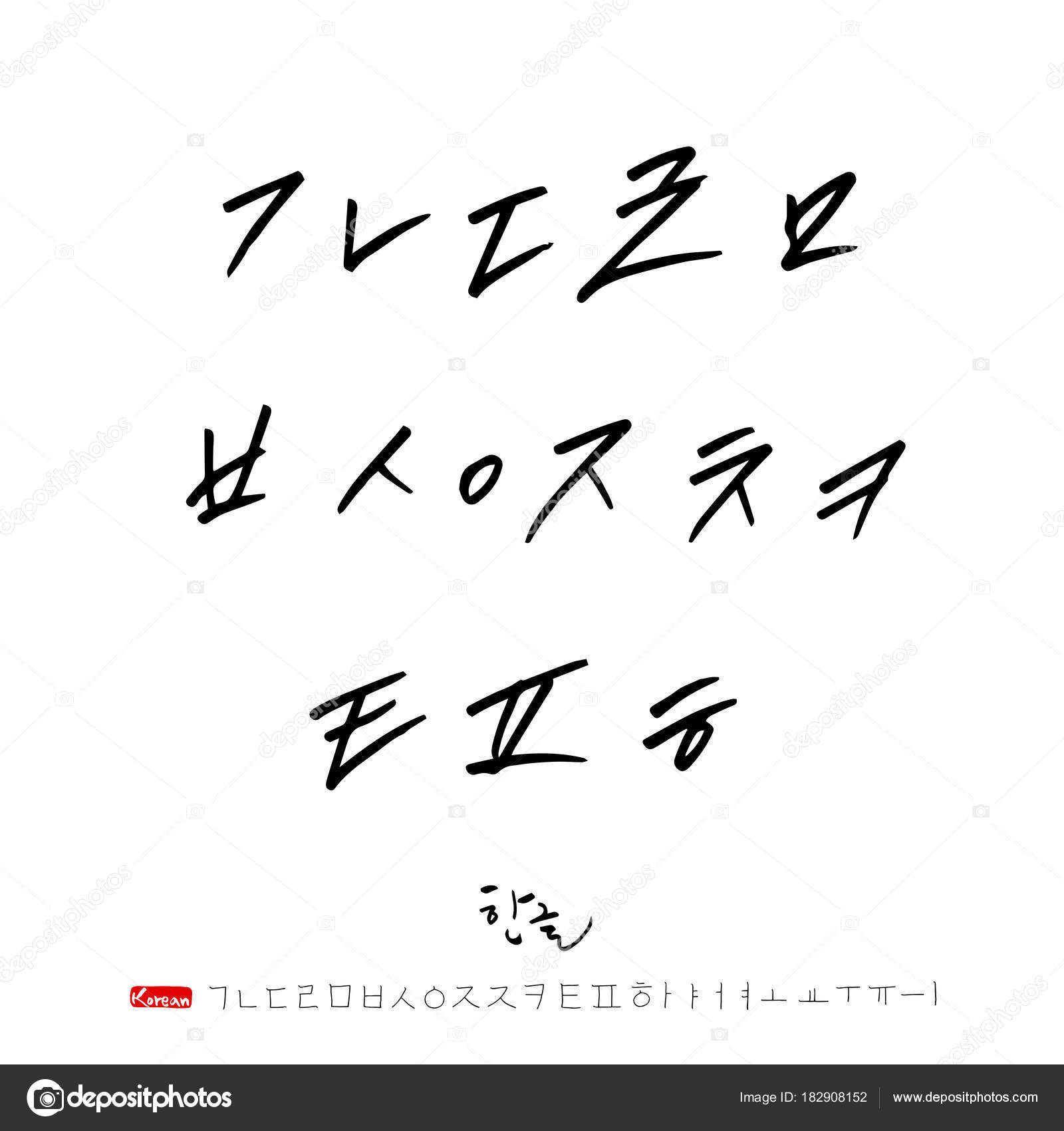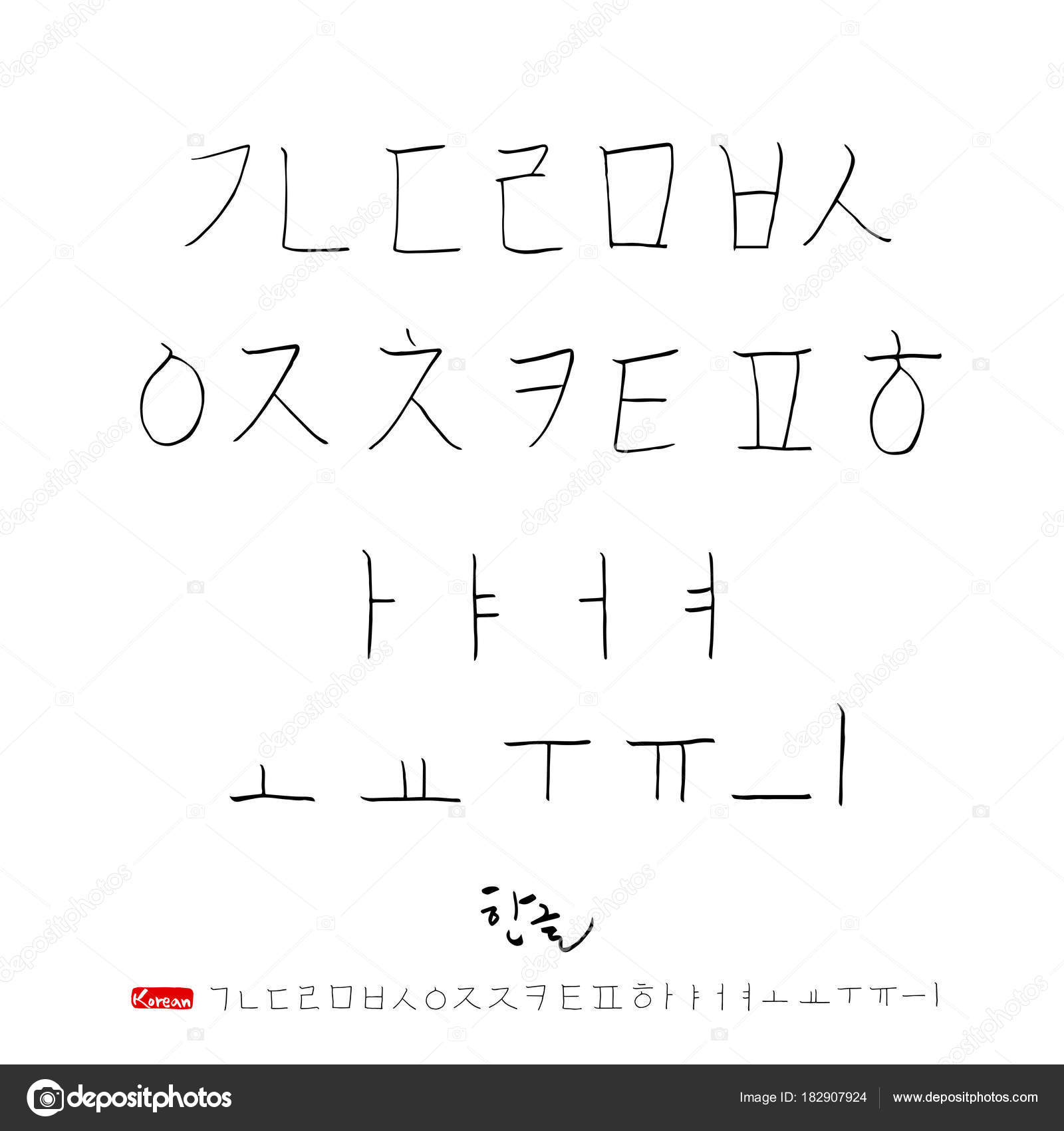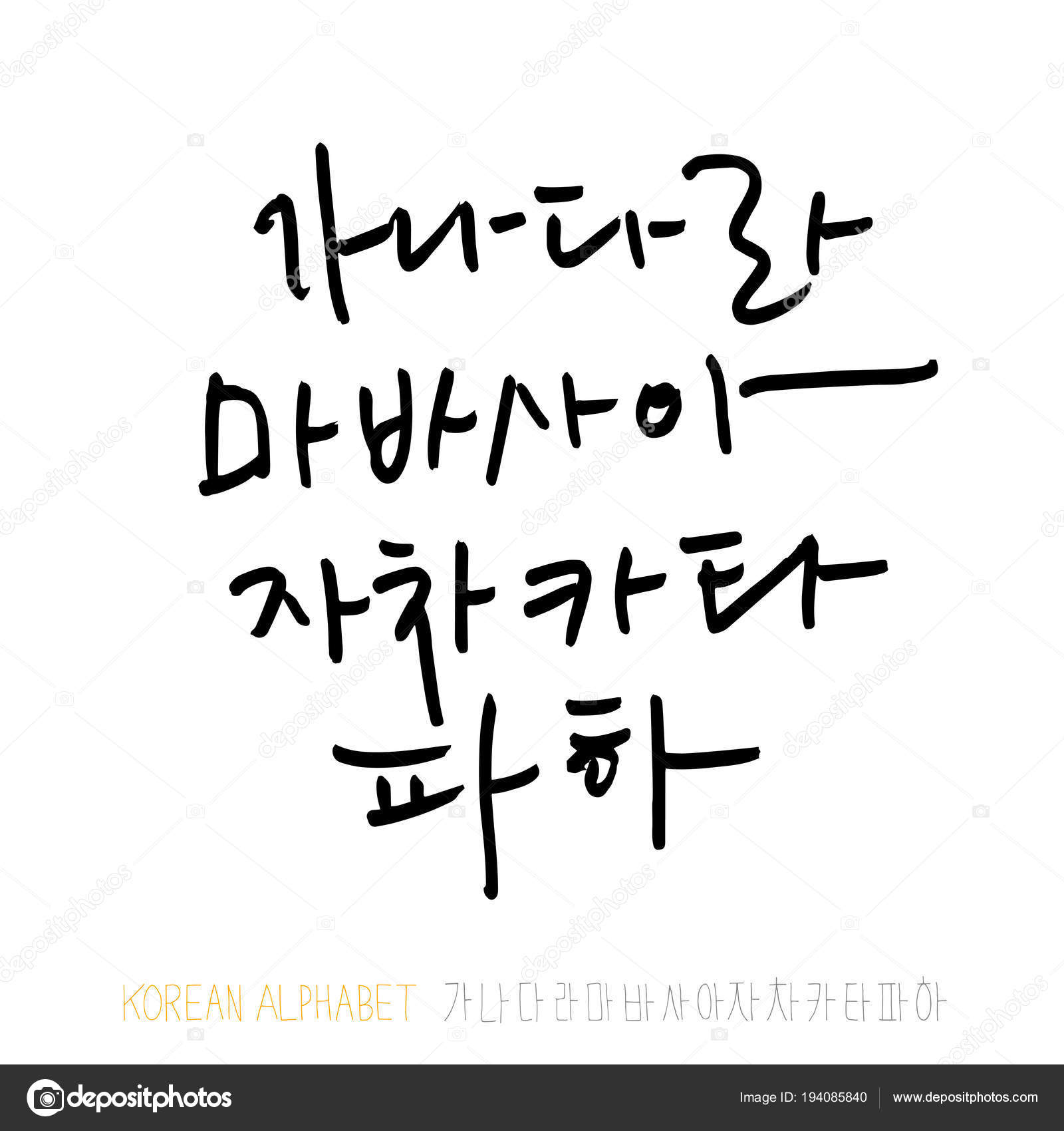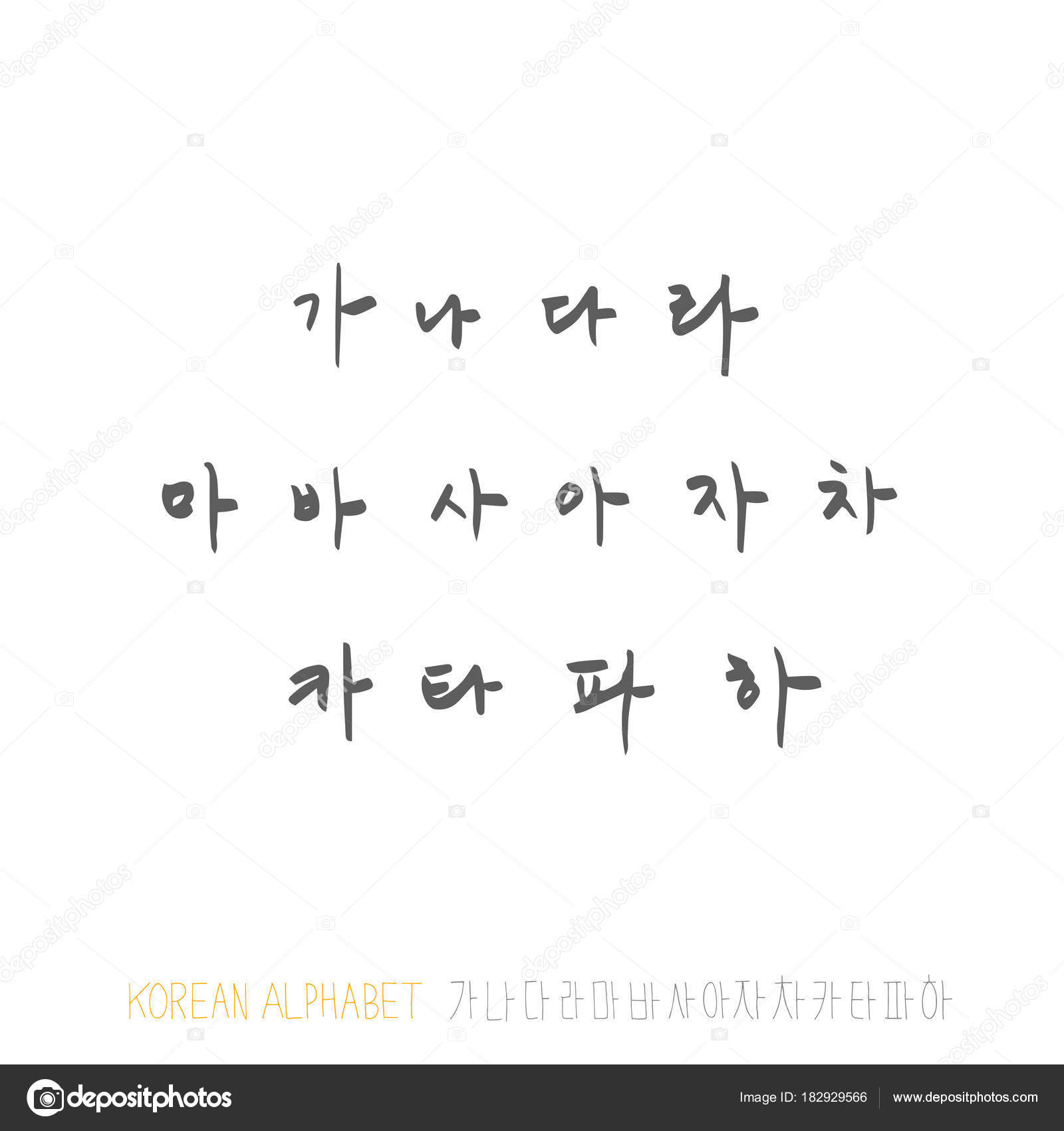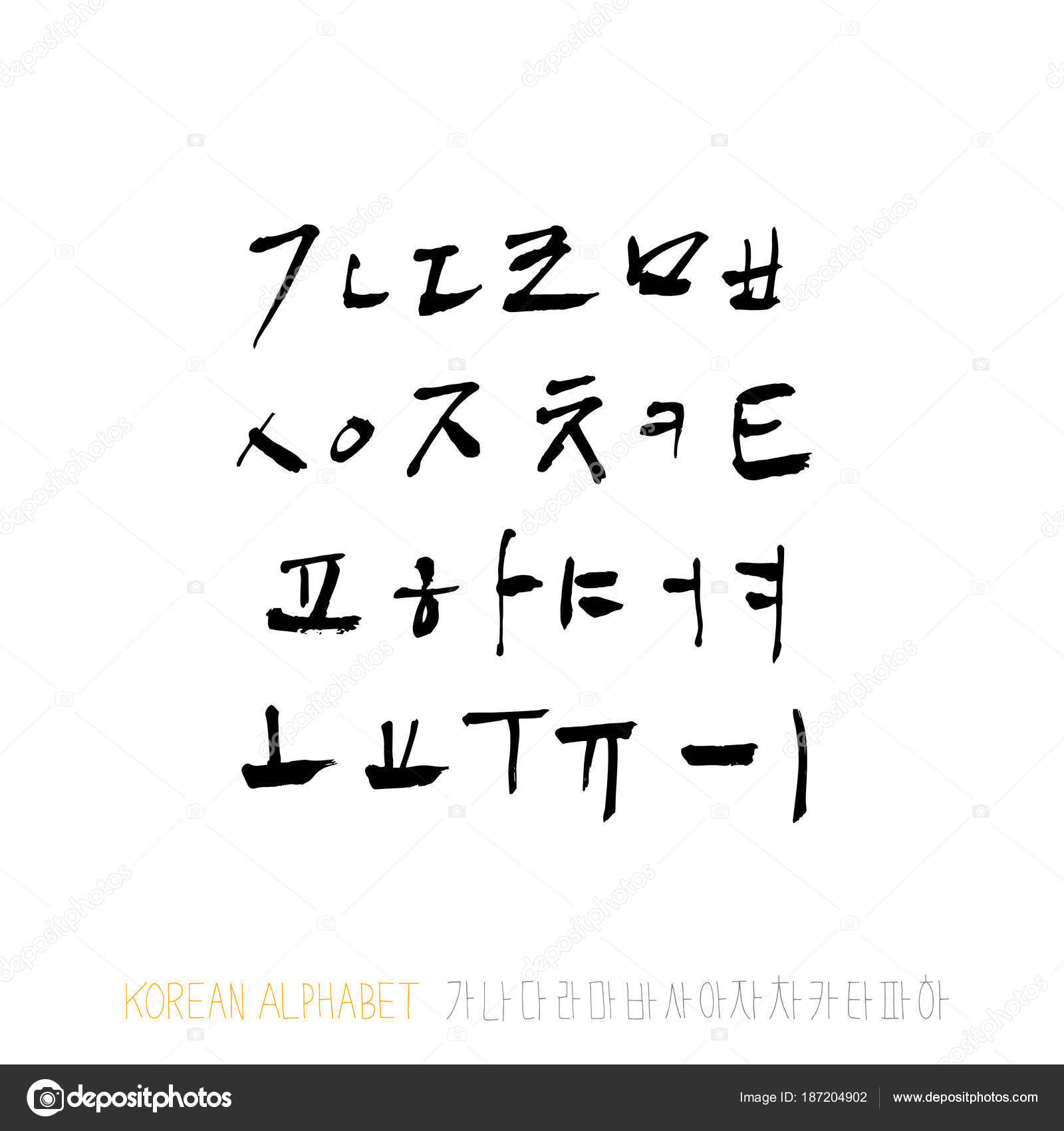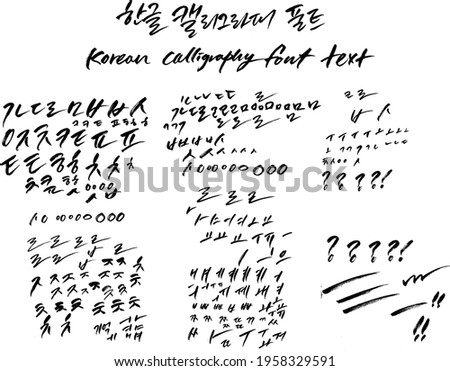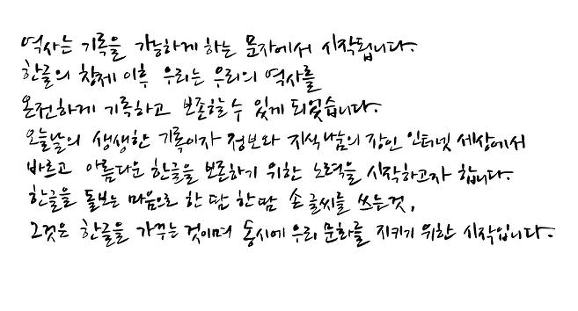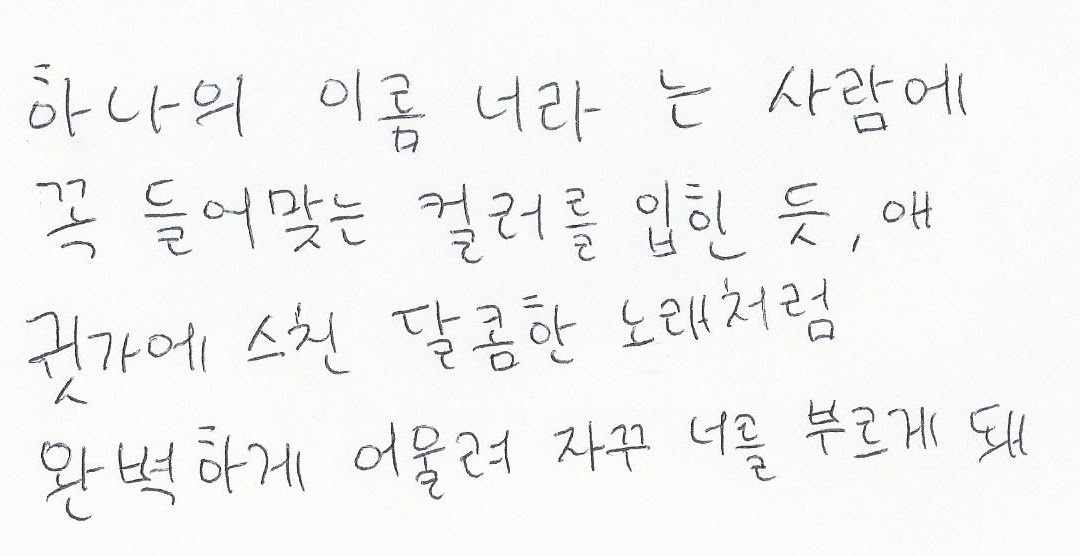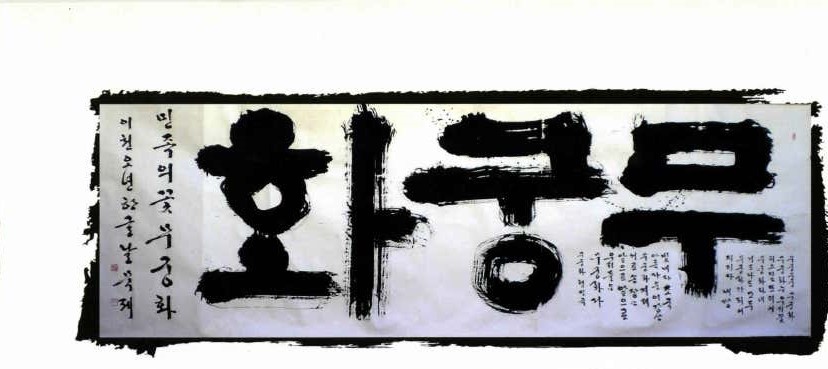
Source Han Serif 본명조 is the new companion font for the. See more ideas about calligraphy fonts calligraphy caligraphy.
Perfect your calligraphy skills and dominate the Hangul script.
Handwriting korean calligraphy font. Although in terms of writing a cursive hangul everyone kind of does their own thing. Hangul is the syllabic writing system used in Korea. 210 Misslee is a tidy and stylish calligraphy Korean font that is.
Hanja refers to the Chinese ideograph characters used in a typical Korean font and is used far less that Hangul. The primary character set support is the KSC 5601 standard which includes 17100 characters. Hanja refers to the Chinese ideograph characters used in a typical Korean font and is used far less that Hangul.
For example ㄹ might be written in one stroke squiggly instead of five segments something like this. The Lucida font family is another familiar and widely accessible handwriting style font. First seen on DaFont.
It was created specifically for the Korean language in the 15th century. Gaegu is an open source handwriting style Korean font free for download and used as web font hosted by Google Fonts. Crazyhangul TrueType Personal use.
There are a number of dialects of Korean which are largely mutually intelligible but there are relatively large differences between the standard forms used in North and South Korea due to decades of separation. It is written using the hangul system. It comes with only one weight and I love the way the dots Handwriting.
This font is based on Hangeul the Korean alphabet and reflects calligraphy typeface. I recommend that you use this font if you want to create an oriental mood. In terms of design this is blocky regular font which reeks of South Korean influences.
The typeface comes in two variants the Lucida Calligraphy and Lucida Handwriting. Free Korean Fonts - unicode Korean Hangul fonts for. Hi Melody is a cute Korean handwriting font that emphasizes the visual rhythm of its non-tetragonal structure.
The height of calligraphy was reached in the middle age where monks developed the narrow writing style called gothic allowing more words to fit on a single line as paper was expensive at the time. Calligraphy is an ancient writing technique using flat edged pens to create artistic lettering using thick and thin lines depending on the direction of the stroke. Discover and customize the font Korean Calligraphy and other similar fonts ready to share in Facebook and Twitter.
The primary character set support is the KSC 5601 standard which includes 17100 characters. This Korean font was designed taking inspiration from the overall modern-day culture of South Korea. We offer fast servers so you can Download Calligraphy Fonts and get to work quickly.
If you havent read Part 1 I highly recommend starting from there. It was created specifically for the Korean language in the 15th century. Calligraphy Archives - Free Korean Fonts 210 Misslee.